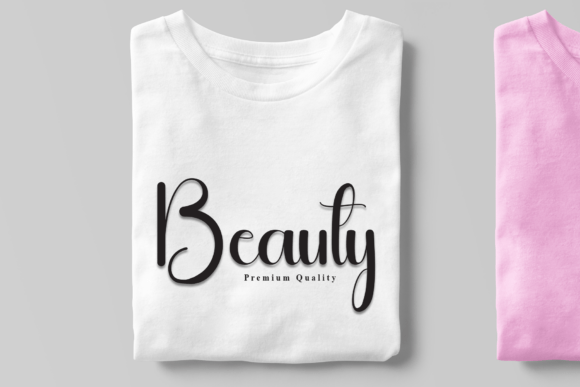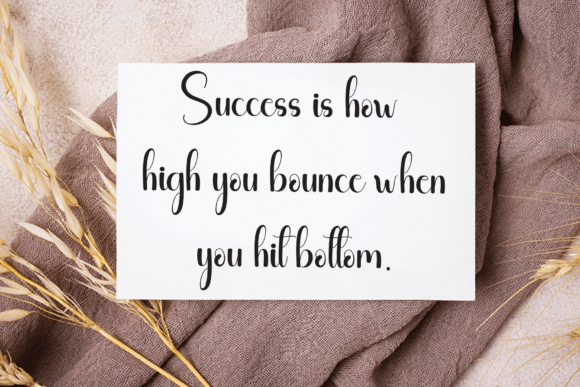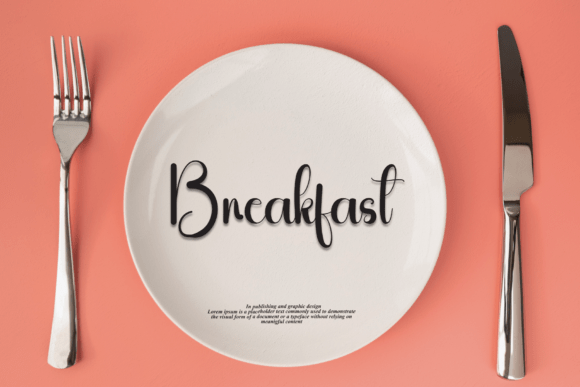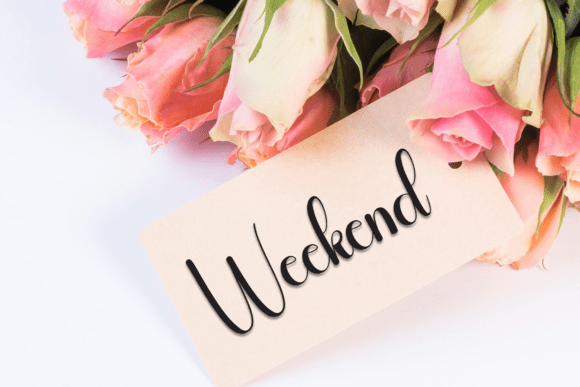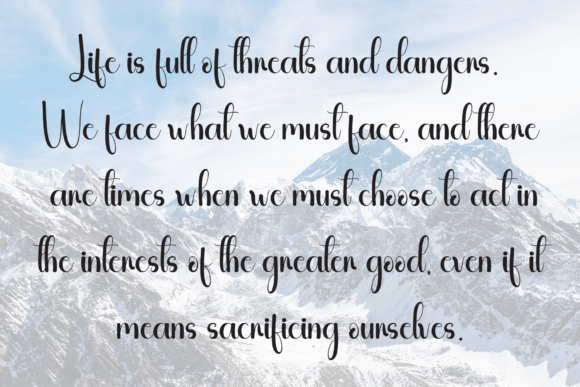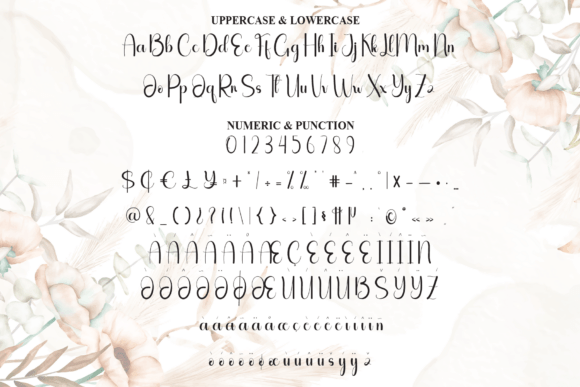
Introducing Chareful Font: Elevate Your Designs with Elegance and Fluidity
In the world of typography, a font can make or break a design. For designers and crafters looking to add a touch of sophistication and charm to their projects, Chareful Font is an exceptional choice. This stylish handwritten script font is designed to radiate elegance and fluidity, making it perfect for a wide range of applications, from branding and invitations to creative projects.
The Characteristics of Chareful Font
Chareful Font boasts smooth, flowing strokes that create a natural and sophisticated feel. Its elegant design ensures that any text appears refined and polished, adding a level of professionalism to your work. The font’s graceful balance of charm and modernity makes it versatile, suitable for various design needs.
Key Features of Chareful Font
- Elegant and Fluid Design: The smooth strokes and flowing lines of Chareful Font give it a natural, sophisticated appearance.
- Versatile Usage: Ideal for branding, invitations, creative projects, and any design that requires a personal, artistic touch.
- Handwritten Script Style: Adds a personal and unique feel to your designs, setting them apart from more traditional typefaces.
- Modern yet Charming: Strikes a perfect balance between modernity and charm, making it suitable for a wide range of audiences and design contexts.
Applications of Chareful Font
The versatility of Chareful Font makes it suitable for numerous applications. Here are some of the most popular uses:
Branding
For businesses looking to establish a strong brand identity, Chareful Font can be a valuable asset. Its elegant and sophisticated feel can help convey a sense of luxury, quality, and professionalism. Whether you’re designing a logo, packaging, or marketing materials, Chareful Font can add a distinctive touch to your brand.
Invitations and Events
Chareful Font is particularly well-suited for invitations and event materials. Its stylish and refined appearance makes it perfect for weddings, formal galas, and other sophisticated events. Adding a personal touch to your invitations can set the tone for a memorable and elegant event.
Creative Projects
For designers and crafters working on creative projects, Chareful Font offers endless possibilities. Whether you’re designing a poster, a greeting card, or a digital artwork, this font can add a unique and artistic element to your work.
Tips for Using Chareful Font Effectively
To make the most of Chareful Font, consider the following tips:
Pair with Complementary Fonts
For maximum impact, pair Chareful Font with fonts that complement its elegant and fluid design. A sans-serif font can provide a nice contrast, making your text more readable and visually appealing.
Adjust Letter Spacing
Experiment with letter spacing to achieve the desired effect. Tighter spacing can create a more intimate feel, while wider spacing can enhance readability and give your text a more airy, elegant appearance.
Play with Colors
Chareful Font looks stunning in a variety of colors. Experiment with different hues to find the one that best suits your design. Soft pastels can add a whimsical touch, while metallic colors can give your text a luxurious feel.
Chareful Font is a stylish and versatile typeface that can elevate your designs with its elegance and fluidity. Whether you’re working on branding, invitations, or creative projects, this font offers a unique combination of charm and modernity. By incorporating Chareful Font into your designs, you can add a personal, artistic touch that sets your work apart.